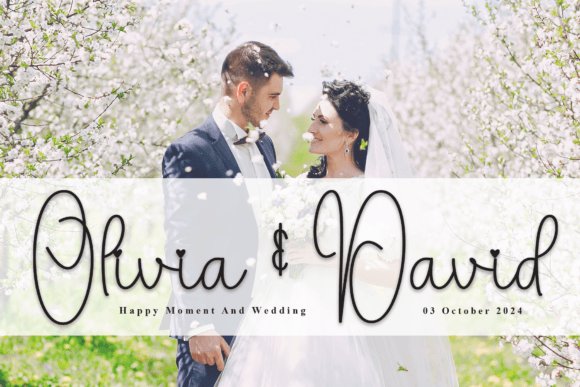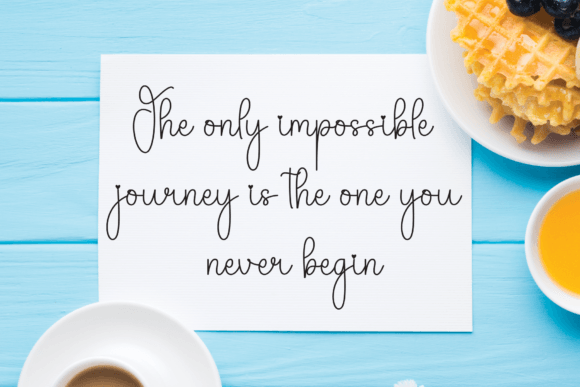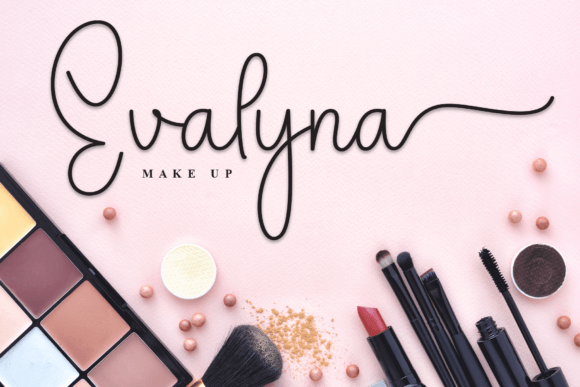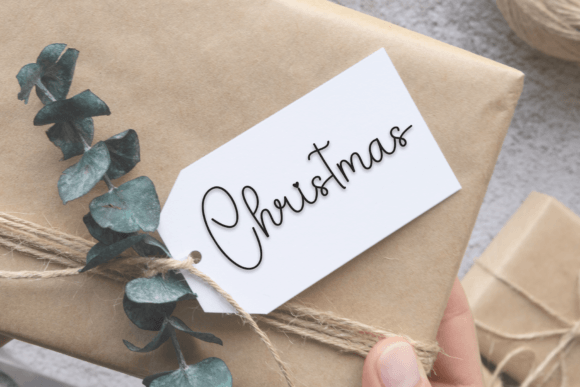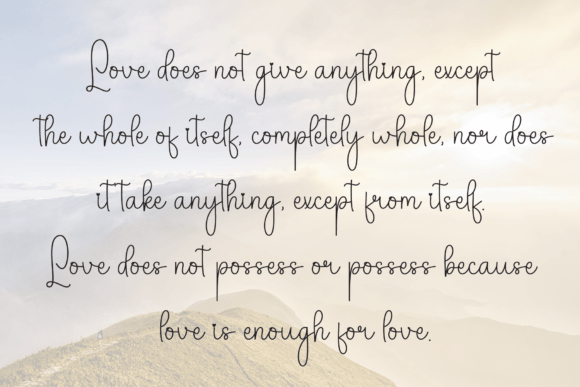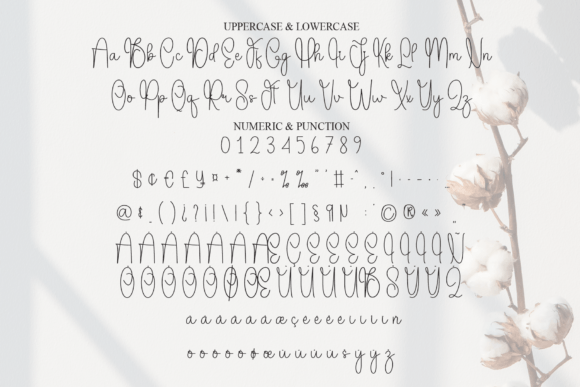
Introduction to Naura Font
Presenting a charming and personable handwritten display font to creatively elevate your design projects.
Reflecting a playful spirit, this font beautifully breathes life into wedding invites, greeting cards, or any design seeking an injection of joy With its cute, friendly demeanor, it succeeds in adding a delightful touch that makes your message extra special.
Key Features of Naura Font